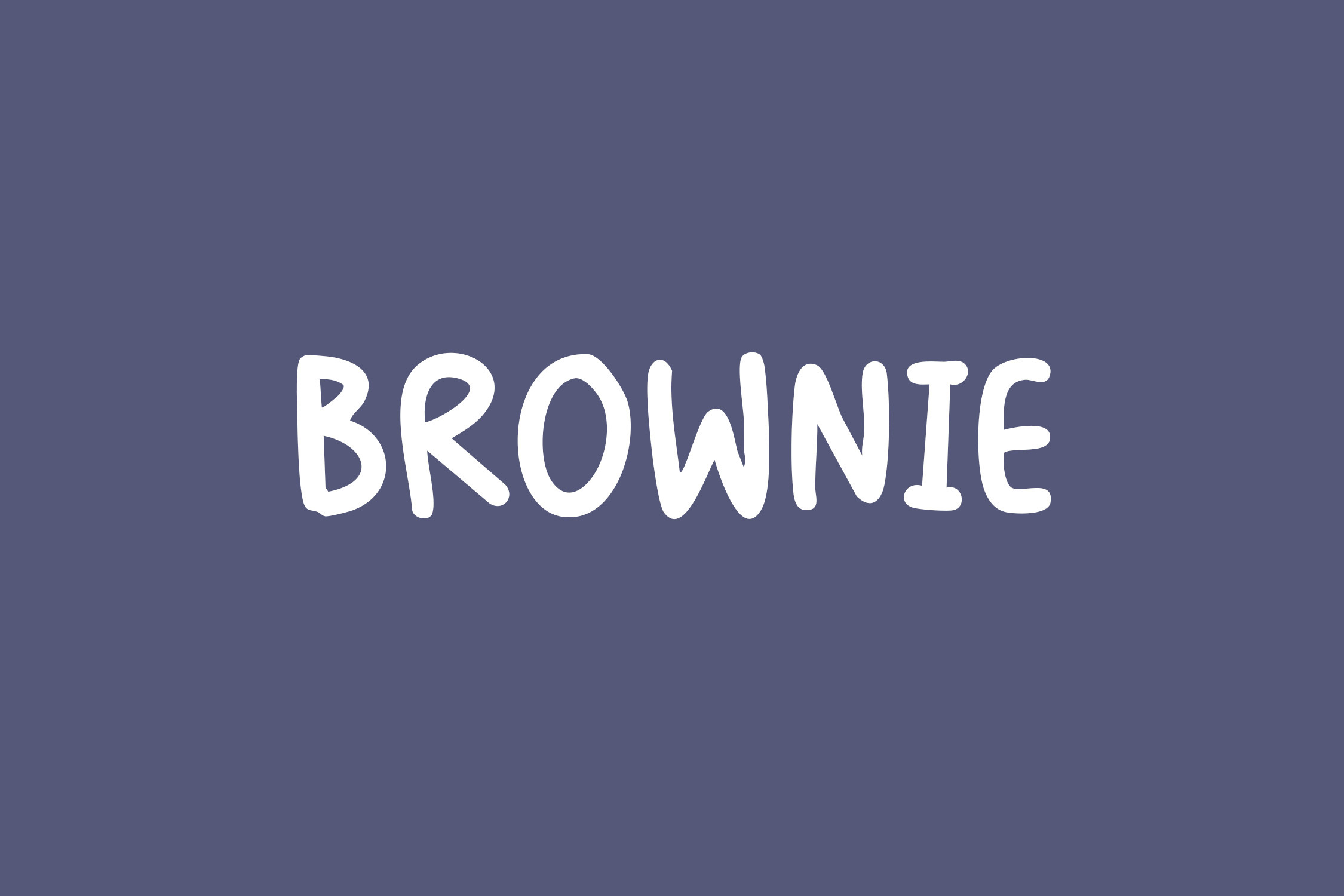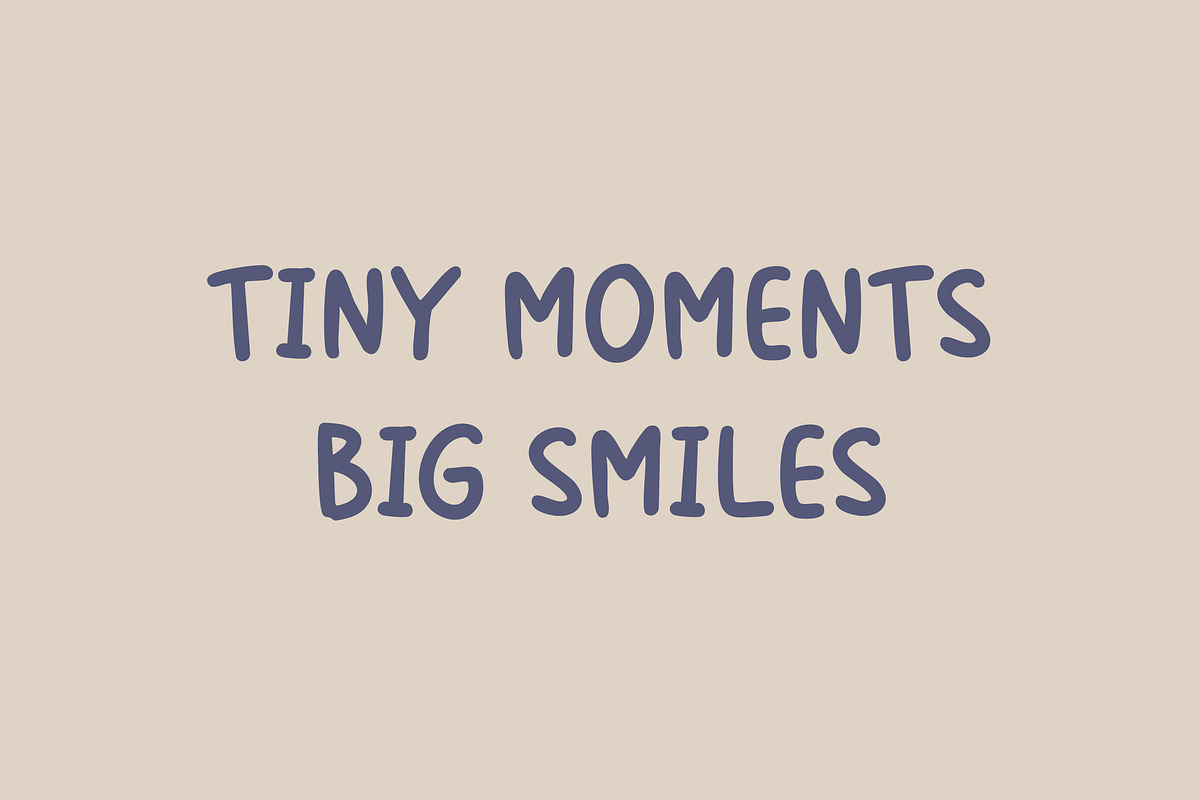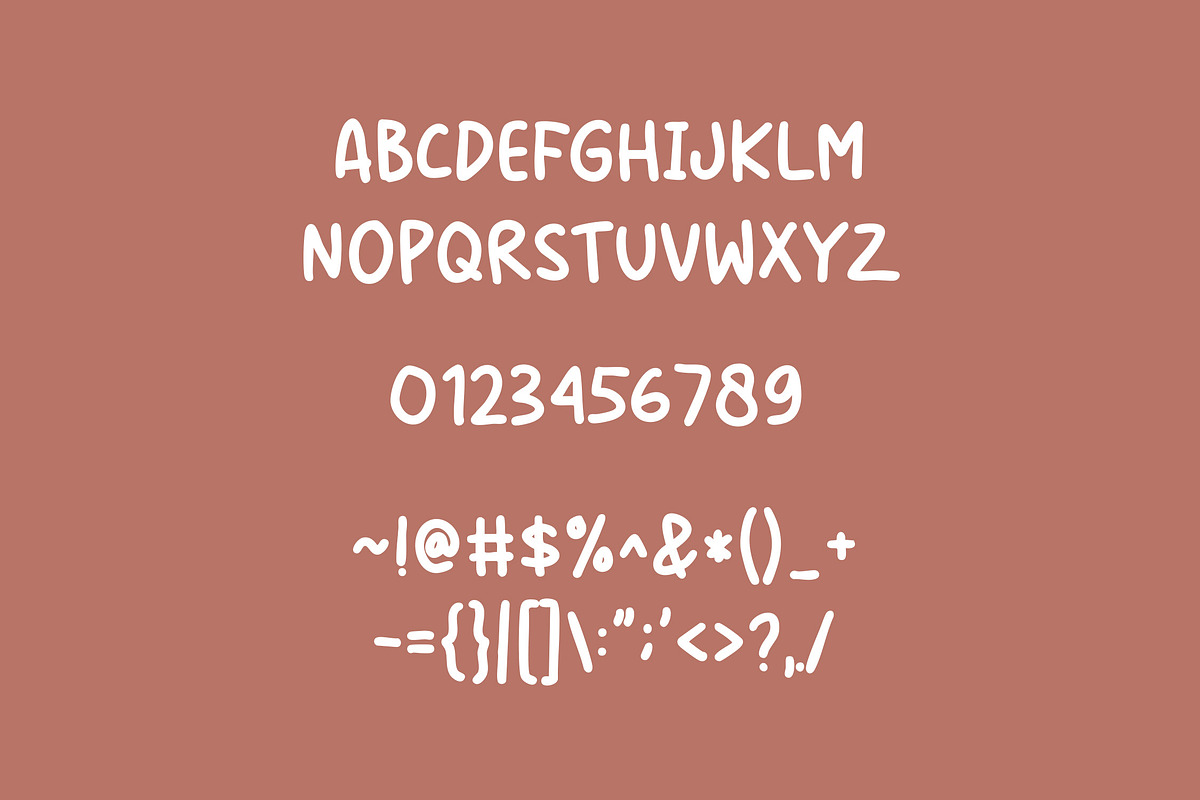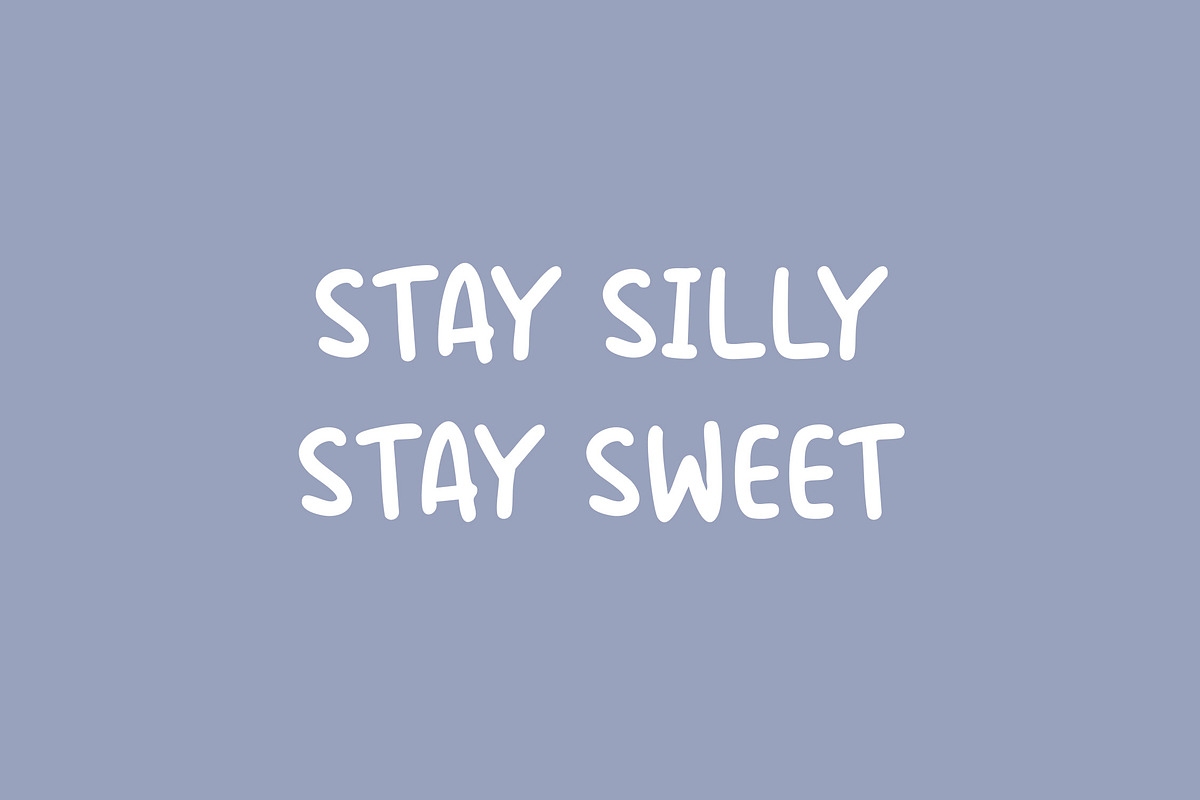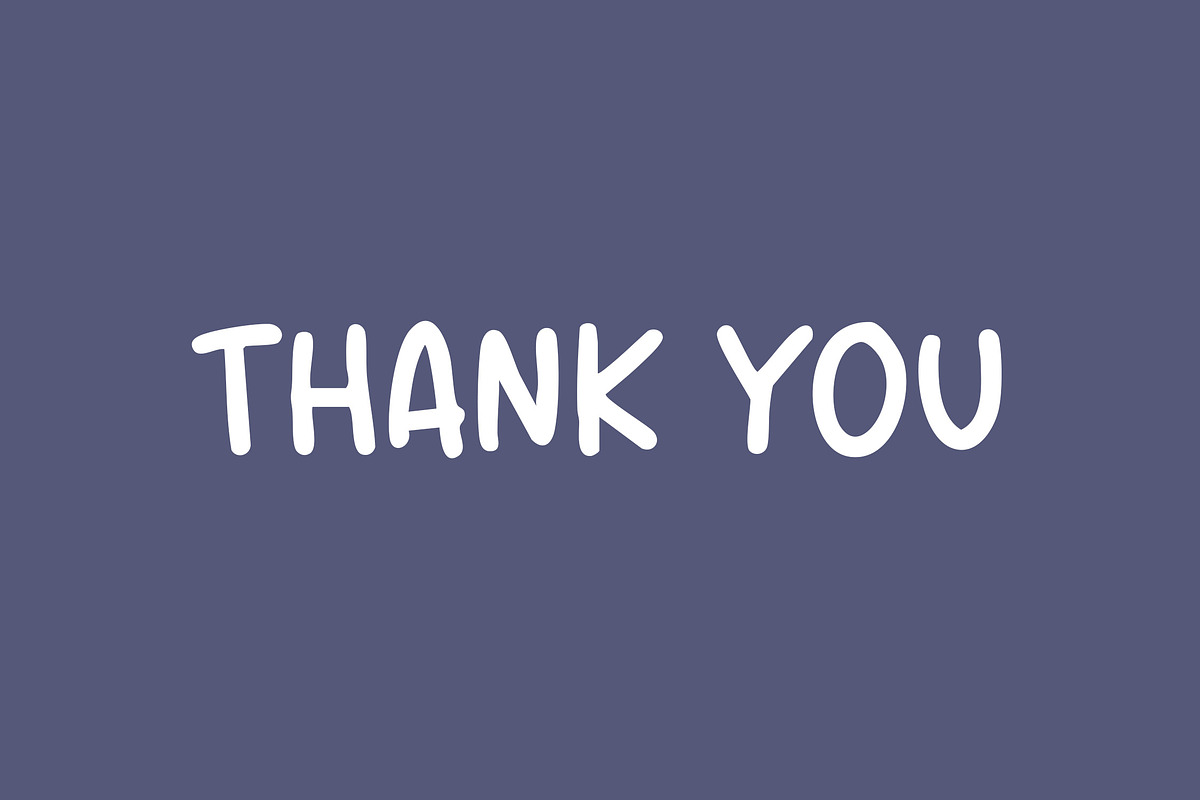
Brownie Playful Handwritten Font
Brownie Playful Handwritten Font brings a sweet, lively touch to your designs. With its soft curves and cheerful handwritten style, Brownie is perfect for branding, quotes, kids’ projects, invitations, packaging, and fun social media content. Lighthearted, readable, and full of personality—this font instantly adds charm to any creative work.